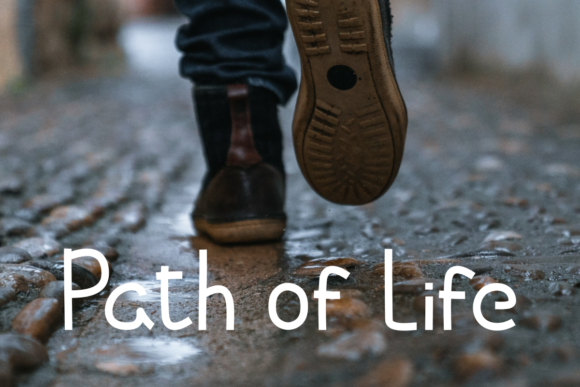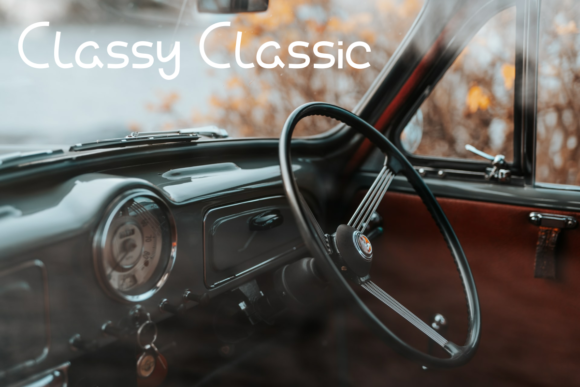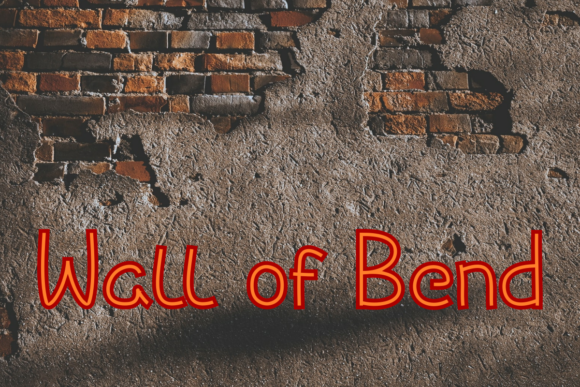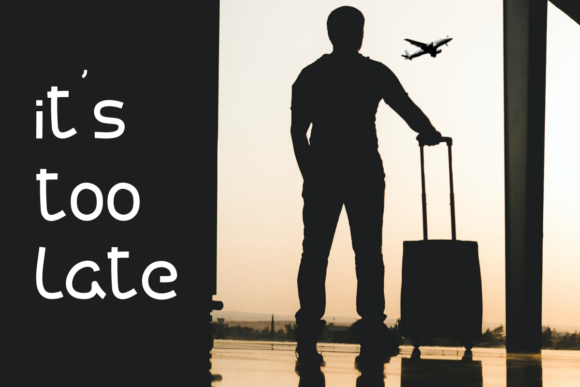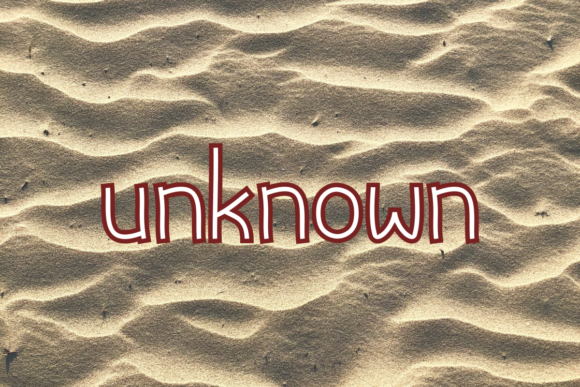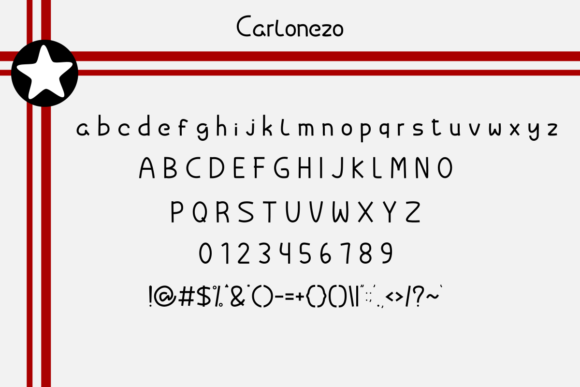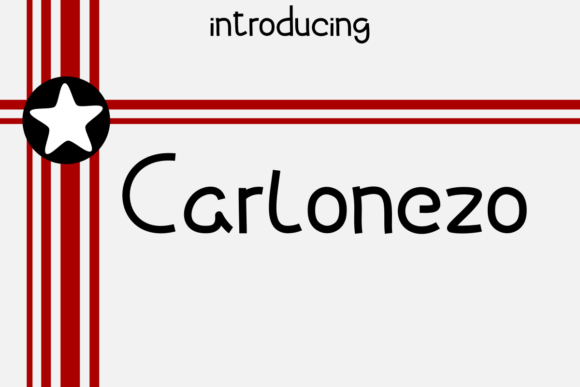
Introducing Carlonezo Font: The Ultimate Choice for Designers and Crafters
Are you tired of using generic fonts that lack personality? Look no further than Carlonezo, a clean and simple lettered handwritten font that’s perfect for a variety of designs. With its authentic look and feel, Carlonezo is sure to add a personal and realistic touch to your projects.
What is Carlonezo Font?
Carlonezo is a beautifully crafted handwritten font that’s designed to mimic the look of natural handwriting. Its clean and simple design makes it easy to read and versatile enough to use in a wide range of applications. Whether you’re working on a logo, branding project, or social media graphics, Carlonezo is the perfect choice.
Key Features of Carlonezo Font
- Clean and Simple Design: Carlonezo features a clean and simple design that’s easy on the eyes. Its uncluttered lines and curves make it perfect for use in a variety of designs.
- Authentic Look and Feel: Unlike other fonts that can look generic or over-stylized, Carlonezo has an authentic look and feel that’s sure to add a personal touch to your projects.
- Handwritten Style: Carlonezo is a handwritten font that’s designed to mimic the look of natural handwriting. This makes it perfect for use in projects where you want to add a personal touch.
- Versatile: Carlonezo is versatile enough to use in a wide range of applications, from logos and branding to social media graphics and more.
Why Choose Carlonezo Font?
There are many reasons why designers and crafters choose Carlonezo font for their projects. Here are just a few:
- Easy to Read: Carlonezo is easy to read, even at small sizes. This makes it perfect for use in body text or captions.
- Unique Look: Unlike other fonts that can look generic or overused, Carlonezo has a unique look that’s sure to make your projects stand out.
- Time-Saving: With Carlonezo, you can create professional-looking projects in no time. Its clean and simple design makes it easy to use and customize.
- High-Quality: Carlonezo is a high-quality font that’s designed to deliver exceptional results. Its crisp lines and curves make it perfect for use in high-resolution designs.
How to Use Carlonezo Font in Your Designs
Using Carlonezo font in your designs is easy. Here are a few tips to get you started:
- Pair it with Other Fonts: Carlonezo pairs well with other fonts, so don’t be afraid to experiment with different combinations.
- Use it for Headings and Captions: Carlonezo is perfect for use in headings and captions. Its clean and simple design makes it easy to read and visually appealing.
- Customize it: Don’t be afraid to customize Carlonezo to fit your needs. You can adjust the size, color, and style to create a unique look.
In conclusion, Carlonezo font is a clean and simple lettered handwritten font that’s perfect for designers and crafters. Its authentic look and feel make it sure to add a personal and realistic touch to your projects. With its versatility, ease of use, and high-quality design, Carlonezo is the ultimate choice for anyone looking to create professional-looking designs.